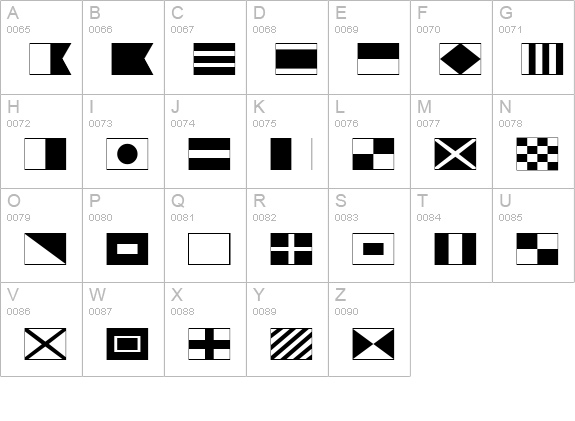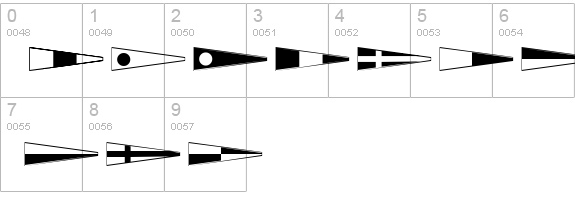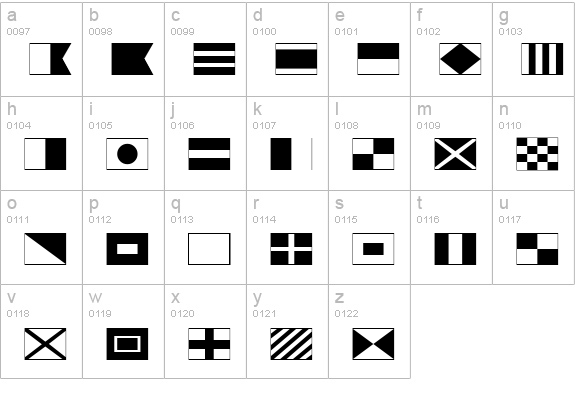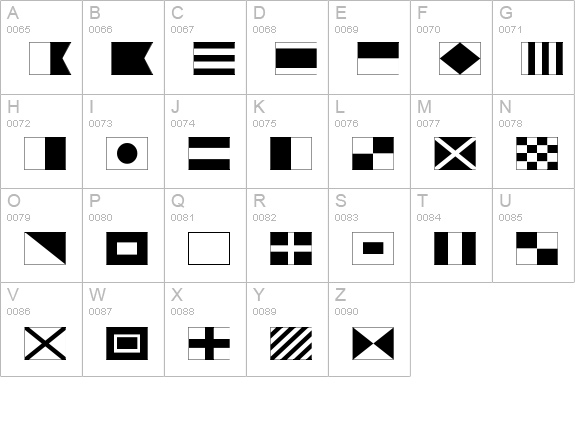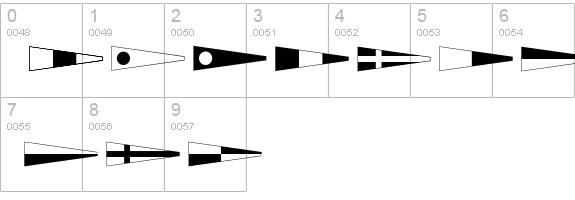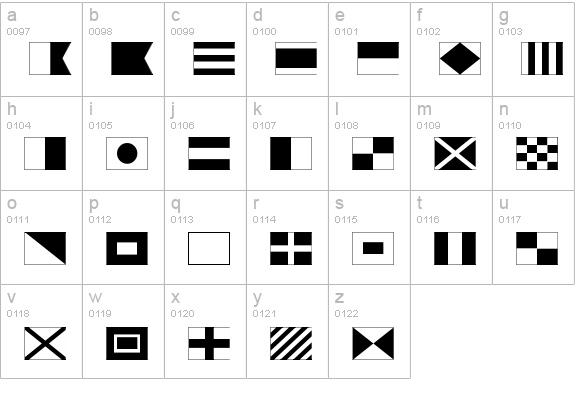
Maritime Flags Font Details
Maritime Flags font is a stunning and versatile typeface that is perfect for any design project related to the sea, sailing, or maritime themes. With its elegant and intricate letterforms, this font captures the essence of nautical flags and brings a touch of maritime charm to your designs. The Maritime Flags font offers a wide range of characters, including letters, numbers, and special symbols, all designed with meticulous attention to detail. Each character is intricately crafted to resemble the colorful and distinctive flags used in maritime communication. Whether you are creating a poster for a regatta, designing a logo for a yacht club, or simply adding a maritime touch to your website, this font will make your designs stand out. One of the best things about Maritime Flags font is that it is completely free to download. You can easily access this font at FontsMarket.com, a trusted source for high-quality and diverse typography. By offering this font for free, the creators of Maritime Flags font have made it accessible to everyone, ensuring that designers, enthusiasts, and hobbyists alike can enjoy the beauty and uniqueness of this typeface in their projects. So, if you are looking for a font that exudes a sense of adventure, elegance, and maritime spirit, look no further than Maritime Flags font. Download it for free at FontsMarket.com and let your creativity sail away with this captivating and versatile typeface.